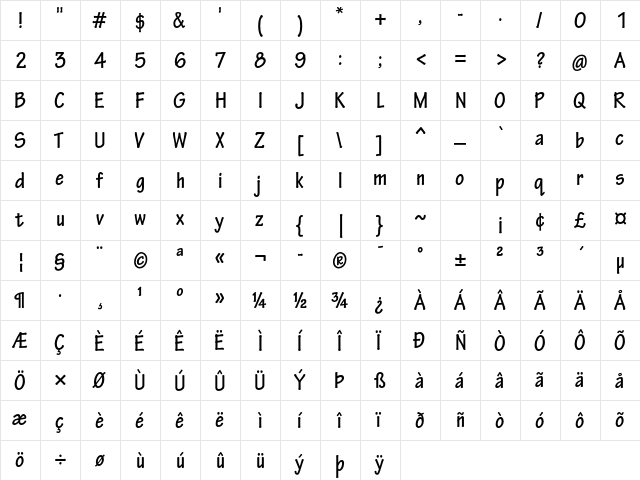
Tekton Pro Bold Condensed
| Designer | David Siegel |
Design Context for Tekton Pro Typeface
Tekton Pro is a composed and adaptable typeface that performs quietly and consistently across a wide range of design contexts. Its bold stroke weight gives it real presence on the page. The condensed width makes it efficient for tight spaces without sacrificing legibility.